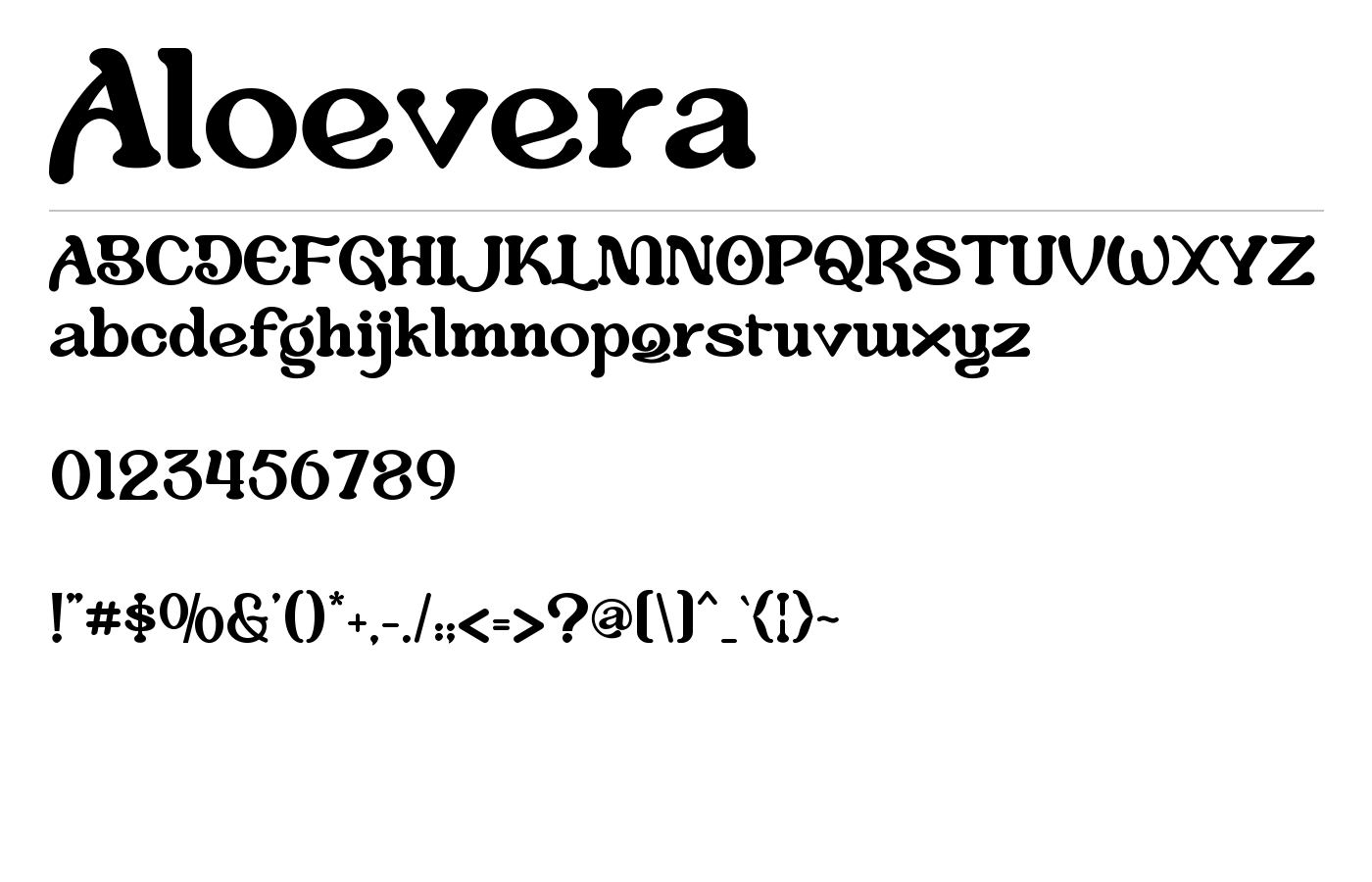
Aloevera is a charming serif font with a bold, playful personality highlighted by its unique curved terminals and organic shapes. It features a medium weight and moderate contrast, with a distinctive, slightly whimsical style that works well for eye-catching headlines, logos, and creative branding. This font’s friendly yet artistic vibe makes it perfect for lifestyle, beauty, and boutique projects that want to convey warmth and originality.
Aloevera Font